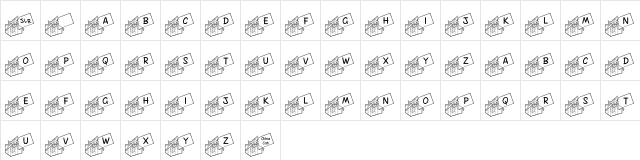
JLR Gift Tags Regular Font Preview
JLR Gift Tags Regular
Design Context for JLR Gift Tags Typeface
JLR Gift Tags is a composed and adaptable typeface that performs quietly and consistently across a wide range of design contexts.